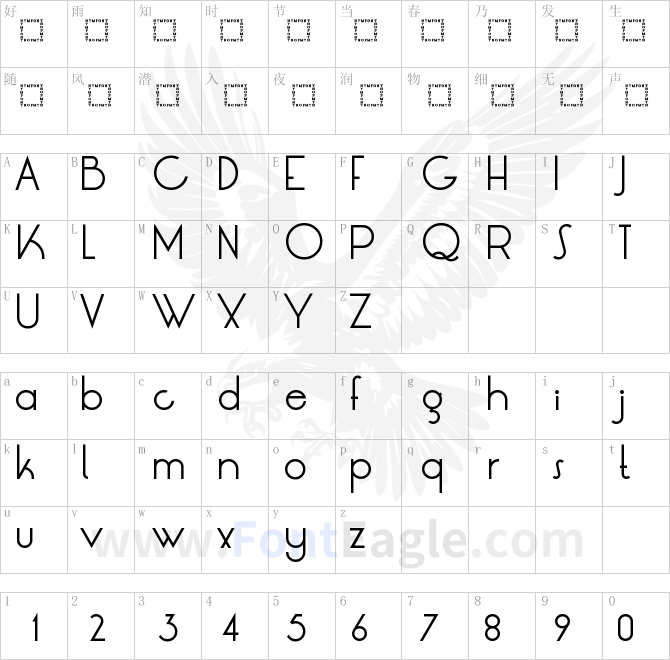
- Font name:LT Oksana
LT-Oksana is a great font, widely used in graphic design, single-page menu design, poster design and other fields, and is deeply loved by designers.LT-Oksana download.